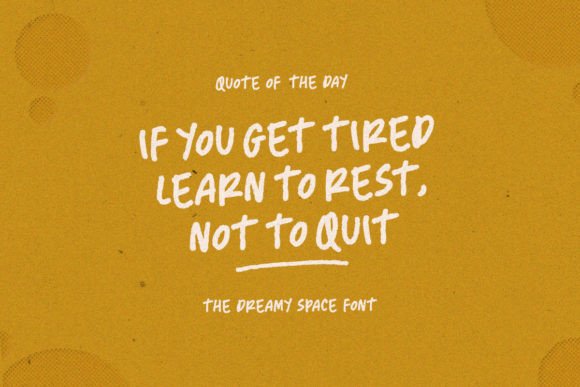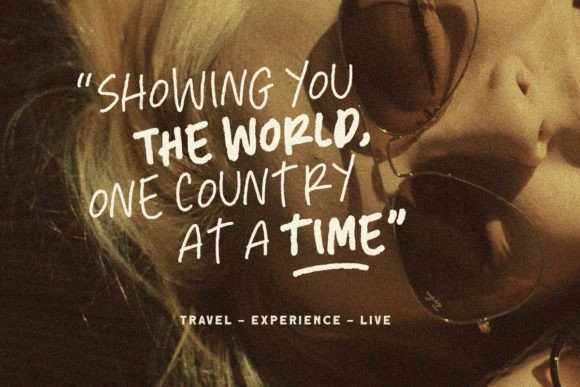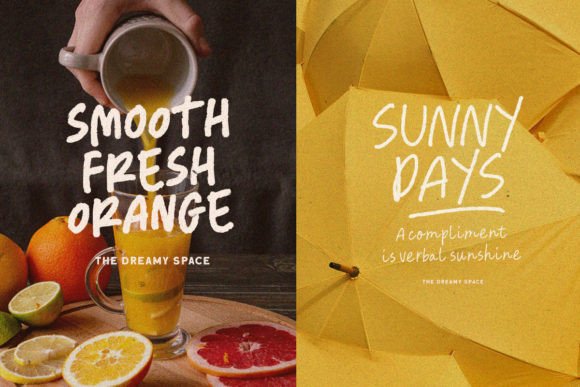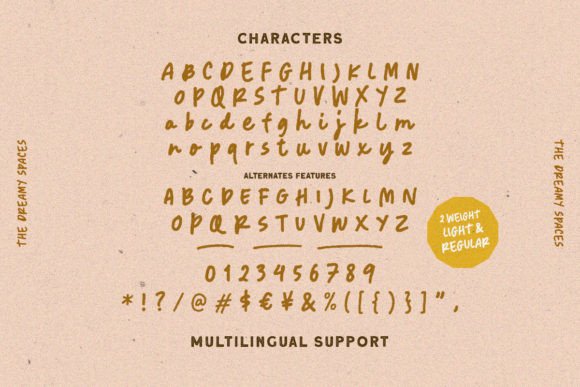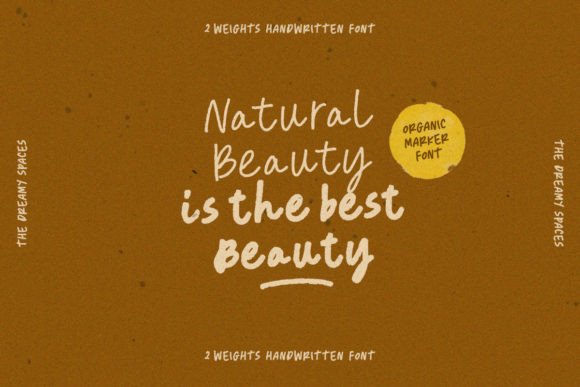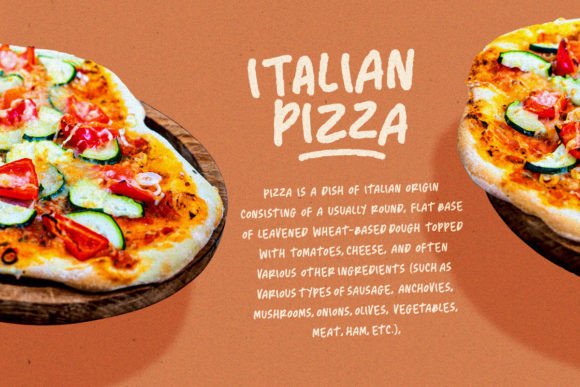
Dreamy Spaces Font: Elevate Your Creations with a Cool and Trendy Brush Display Font
Are you a designer or crafter looking for a font that can add a touch of elegance and sophistication to your creations? Look no further than the Dreamy Spaces Font. This cool and trendy brush display font is perfect for anyone who wants to elevate the look of their beautiful creations while keeping them grounded and natural.
What is Dreamy Spaces Font?
Dreamy Spaces Font is a stylish, graceful, and flowing font that is perfect for a variety of design projects. Its unique brush-like texture gives it a distinctive look that is both modern and timeless. Whether you’re working on a logo, a poster, a website, or any other design project, this font is sure to make your creations stand out.
Key Features of Dreamy Spaces Font
- Cool and Trendy: Dreamy Spaces Font is a cool and trendy font that is perfect for designers and crafters who want to stay on top of the latest design trends.
- Brush Display Font: This font features a unique brush-like texture that gives it a distinctive look.
- Stylish and Graceful: Dreamy Spaces Font is a stylish and graceful font that is perfect for creating elegant and sophisticated designs.
- Flowing: The font’s flowing design makes it perfect for creating beautiful and eye-catching text.
- Grounded and Natural: Despite its elegant look, Dreamy Spaces Font still has a grounded and natural feel that makes it perfect for a variety of design projects.
Uses of Dreamy Spaces Font
Dreamy Spaces Font is a versatile font that can be used for a variety of design projects, including:
- Logos: Create a stunning logo for your business or brand with Dreamy Spaces Font.
- Posters: Design eye-catching posters for events, promotions, or advertisements.
- Websites: Use Dreamy Spaces Font to create beautiful and elegant website headers, titles, and text.
- Social Media Graphics: Create stunning social media graphics, including Facebook posts, Instagram stories, and Twitter headers.
- Stationery: Design beautiful stationery, including business cards, letterheads, and envelopes.
Why Choose Dreamy Spaces Font?
There are many reasons why you should choose Dreamy Spaces Font for your design projects. Here are a few:
- Unique Look: Dreamy Spaces Font has a unique look that will make your designs stand out.
- Elegant and Sophisticated: This font is perfect for creating elegant and sophisticated designs.
- Versatile: Dreamy Spaces Font can be used for a variety of design projects.
- Easy to Read: Despite its elegant look, Dreamy Spaces Font is still easy to read.
Tips for Using Dreamy Spaces Font
Here are a few tips for using Dreamy Spaces Font:
- Use it for Headings: Dreamy Spaces Font is perfect for headings and titles.
- Pair it with Other Fonts: Pair Dreamy Spaces Font with other fonts to create a unique and interesting look.
- Experiment with Colors: Experiment with different colors to find the perfect look for your design.
- Keep it Simple: Don’t overcomplicate your design. Keep it simple and elegant.